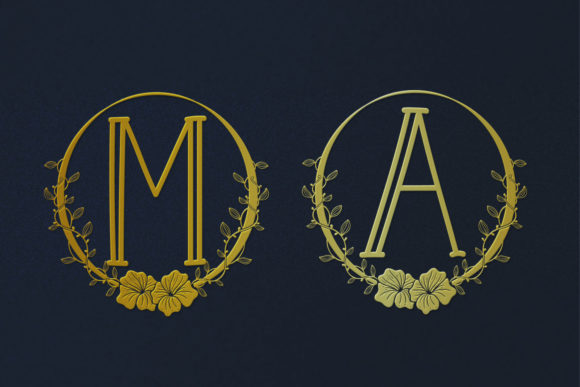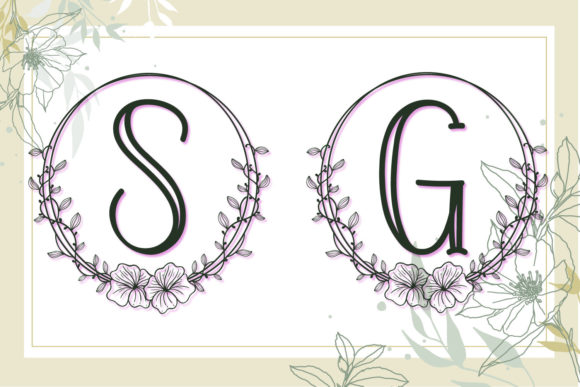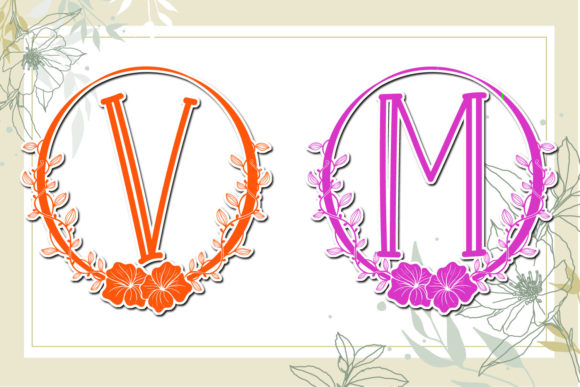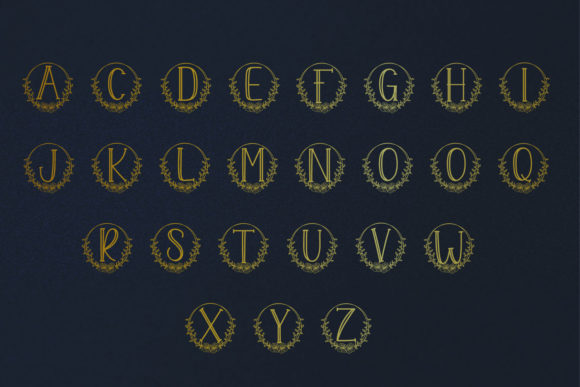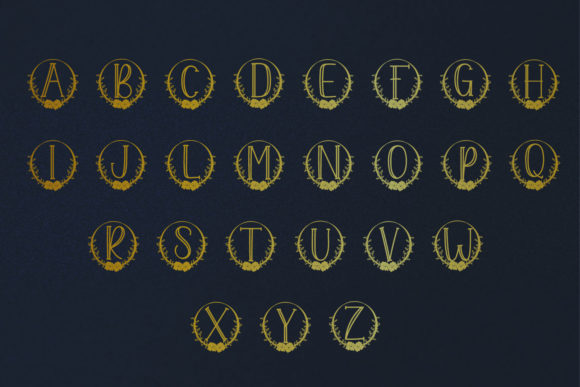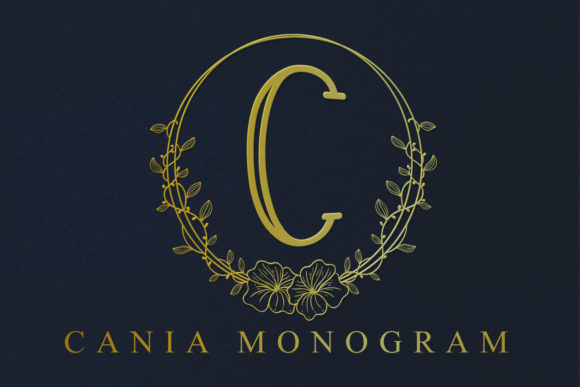
The Elegance of Cania Monogram Font: A Designer’s Delight
I still remember the time I was working on a wedding invitation project, and I just couldn’t find the right font to match the elegance and sophistication of the design. The client was specific about wanting something delicate, yet impactful. That’s when I stumbled upon Cania Monogram Font, and it instantly became my go-to choice. In this article, I’ll share my love for this beautiful font, its features, and how you can make the most of it in your designs.
An Honest Review of Cania Monogram Font
Cania Monogram Font has quickly become a favorite in my font collection, and here’s why:
- ✨ Delicate and elegant: This font exudes sophistication and refinement, making it perfect for wedding invitations, stationery, and other formal designs.
- ✅ Authentic feel: The font has a unique, hand-crafted feel that adds a touch of warmth and personality to your designs.
- 💕 Versatile: Cania Monogram Font is not just limited to monograms; it’s perfect for creating beautiful headings, titles, and even social media posts.
While Cania Monogram Font is a stunning addition to any design, there are a few quirks to keep in mind:
- 🤔 Limited character set: As a monogram font, it’s designed specifically for single letters or combinations of letters. This might limit its use for longer texts or paragraphs.
- ⚠️ Kerning: Some users might find the kerning a bit off, especially when using multiple letters together. However, this can be easily adjusted in most design software.
The Story Behind Cania Monogram Font
Cania Monogram Font was designed with the intention of creating a delicate, yet impactful font that would add a touch of elegance to any design. Inspired by traditional calligraphy and hand-lettering, this font is perfect for designers and crafters looking to add a personal touch to their work.
| What is Cania Monogram Font best used for? | Cania Monogram Font is perfect for creating wedding invitations, stationery, social media posts, and greeting cards. |
| Is Cania Monogram Font suitable for body text? | No, Cania Monogram Font is best used for headings, titles, and short texts. Its character set and design make it less suitable for longer paragraphs. |
| Does Cania Monogram Font support OpenType features? | Yes, Cania Monogram Font supports OpenType features, including ligatures and stylistic alternates. |